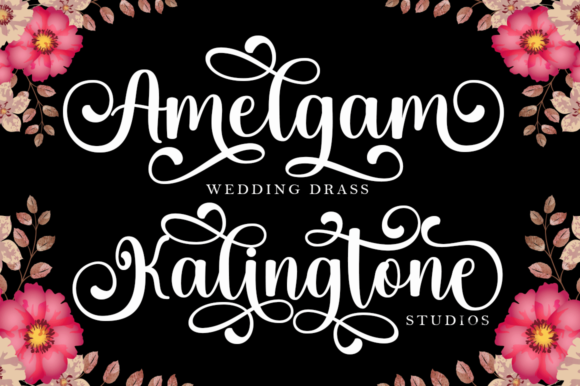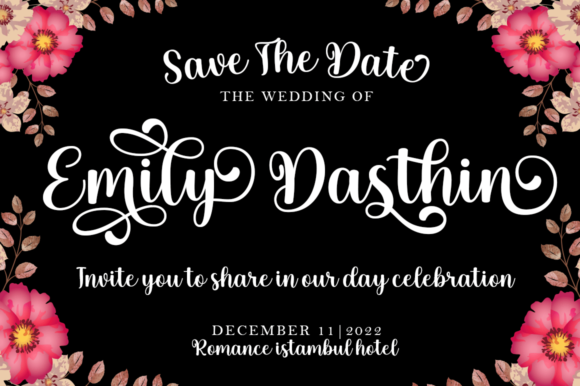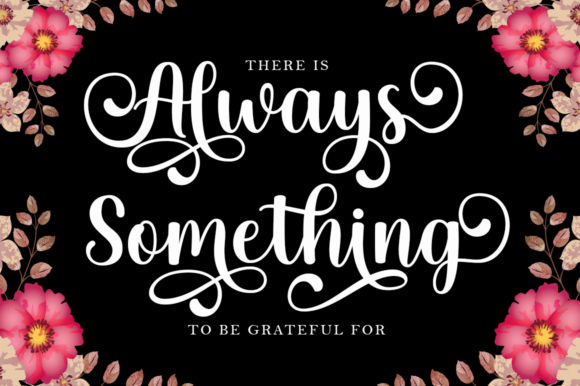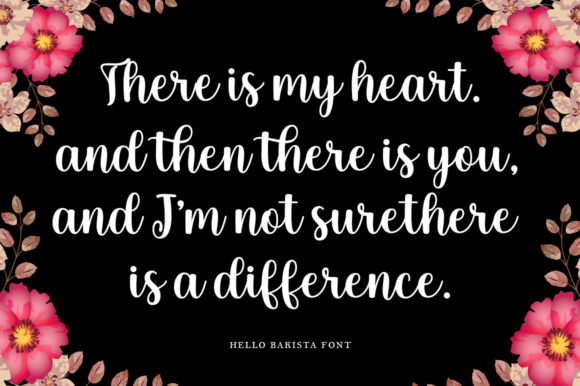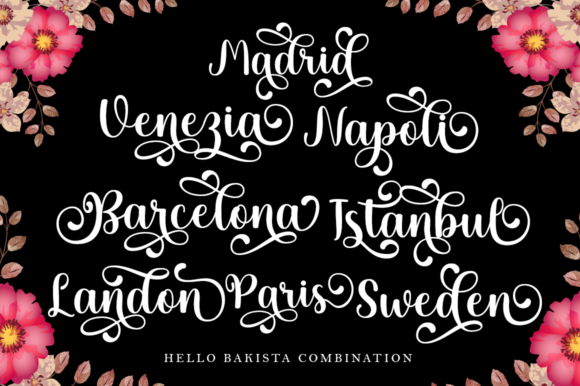
Hello Bakista Script Font
About Hello Bakista Script Font
Hello Bakista Script is a modern handwritten font featuring a varied baseline and smooth characters. Its classic and elegant aesthetic makes it suitable to be used on various designs such as headings, signatures, logos, wedding invitations, t-shirts, letterheads, signage, labels, news, posters, badges, etc. Use this script font to add that special stylish touch to any design idea you can think of!